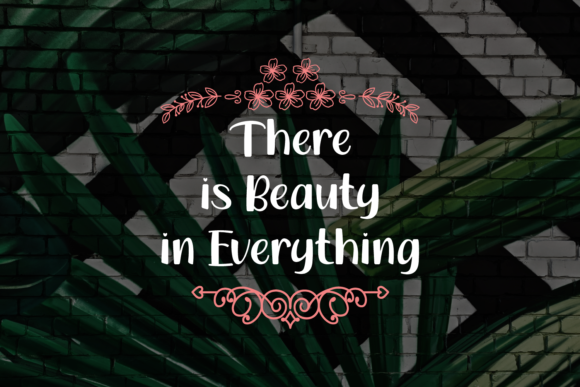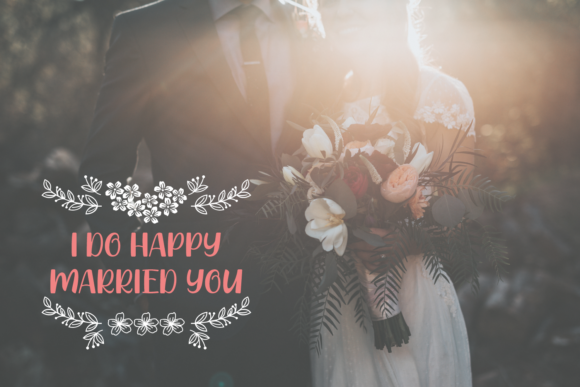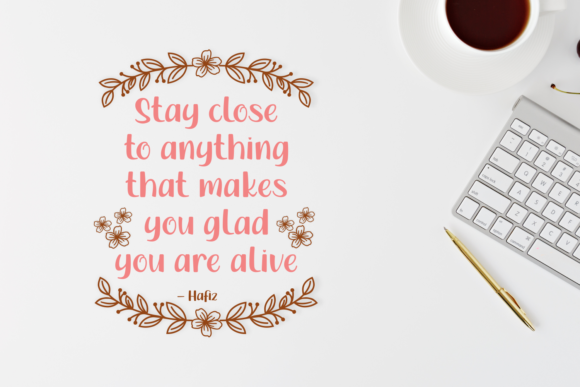
HomeScript FontsMangonie Font Script Fonts Mangonie Font FacebookXPinterestWhatsApp Mangonie Font Poster 2 Mangonie Font Poster 3 Mangonie Font Poster 4 About Mangonie Font Mangonie is a bold, yet friendly script that will easily add a charming twist to your next crafting project! DOWNLOAD NOW People also explored Juanview Font Whirlwind Disaster Font Rustic Dad Font Winest off the Collection Font Handwriten Geopie Moorpie Font Riobes Font Isyana Script Font Fun TImes Font 374 0 TagsMangonie Font Previous articleSweet Dream FontNext articleSagne Font LEAVE A REPLY Cancel reply Comment: Please enter your comment! Name:* Please enter your name here Email:* You have entered an incorrect email address! Please enter your email address here Website: Save my name, email, and website in this browser for the next time I comment. Personal Use Free Oatmeal Personal Use Free Read more about this font Miss Love Personal Use Free Read more about this font Archipellago Personal Use Free Read more about this font Diland Personal Use Free Read more about this font BLOG How to Cut Any Font on Cricut: Convert a Font to SVG (Free) Turn any font into a clean SVG so it cuts crisp on Cricut - a quick 3-step workflow using a free font-to-SVG tool. 5 Fonts That Will Dominate Design Trends in 2026 How to Install and Use Fonts on Windows, macOS, and Web Projects Top 7 Google Fonts Alternatives for Faster and Privacy-Friendly Web Design (2025)